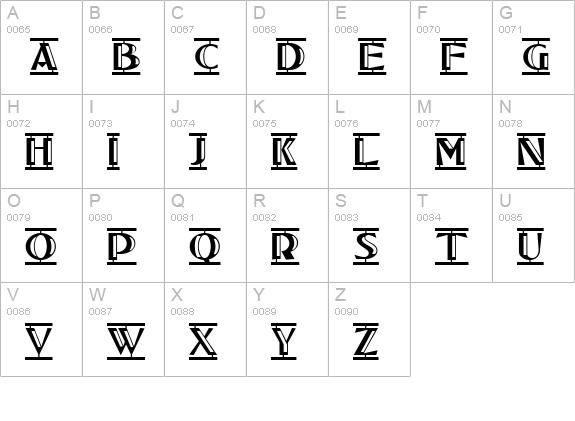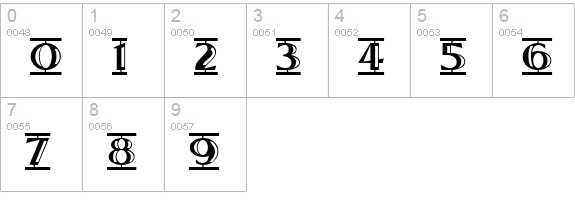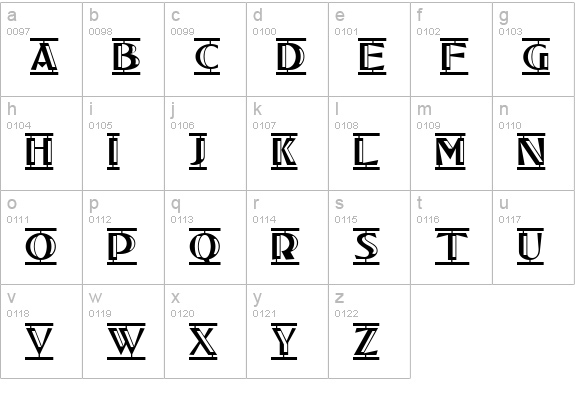
Tucson Two Step NF Font Details
Tucson Two Step NF font is a charming and stylish typeface that combines classic elegance with a modern twist. Its unique design features a subtle two-step effect on each letter, giving it a dynamic and eye-catching look. Perfect for adding a touch of sophistication to any project, from invitations to branding. What makes Tucson Two Step NF font even more appealing is that it is completely free to download at FontsMarket.com. Yes, you read that right - this beautiful font is available at no cost, allowing you to elevate your designs without breaking the bank. So why wait? Download Tucson Two Step NF font today and add a touch of class to your next creative endeavor.